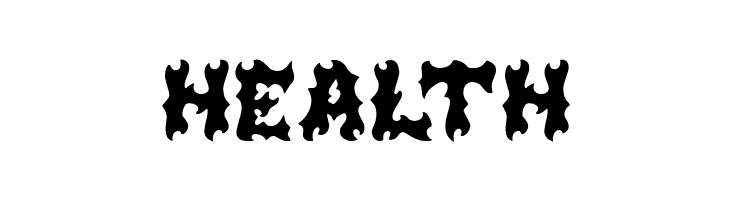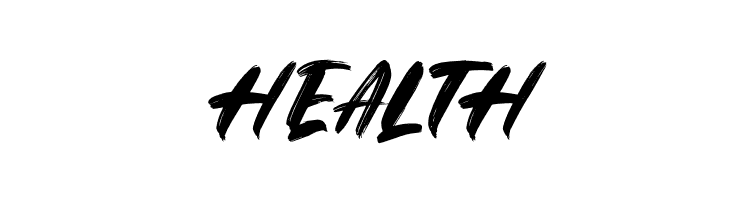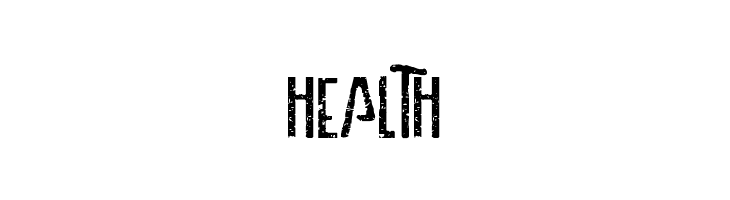
A bold, punk-inspired font with jagged, dynamic characters.
A dripping, eerie font perfect for horror themes.
A bold, brush-style font with dynamic, high-contrast strokes.
An ornate and vintage-style font with decorative swirls and a distressed texture.
A bold, brushstroke font with high contrast and dynamic style.
A bold, brush-style font with dynamic, hand-painted strokes.
A bold, snow-capped decorative font perfect for festive designs.
A bold, brushstroke font with a raw, artistic feel and textured edges.
A bold, edgy font with jagged, brush-like strokes and a rebellious aesthetic.
A bold, jagged font with sharp, thorny edges and an aggressive style.